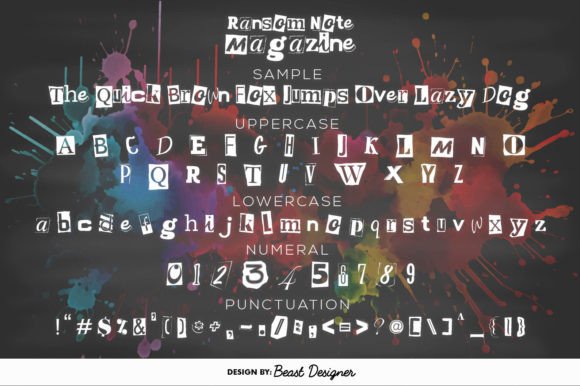
Ransom Note Magazine Font
Ransom Note Magazine Font is a distinctive typeface that mimics the look of letters cut from magazines and newspapers, commonly associated with ransom notes.
This font features a mix of varied letter shapes and sizes, creating an edgy and chaotic aesthetic.
It’s perfect for designs that require a vintage, rebellious, or handmade look, adding a touch of intrigue and unconventional style to your projects.